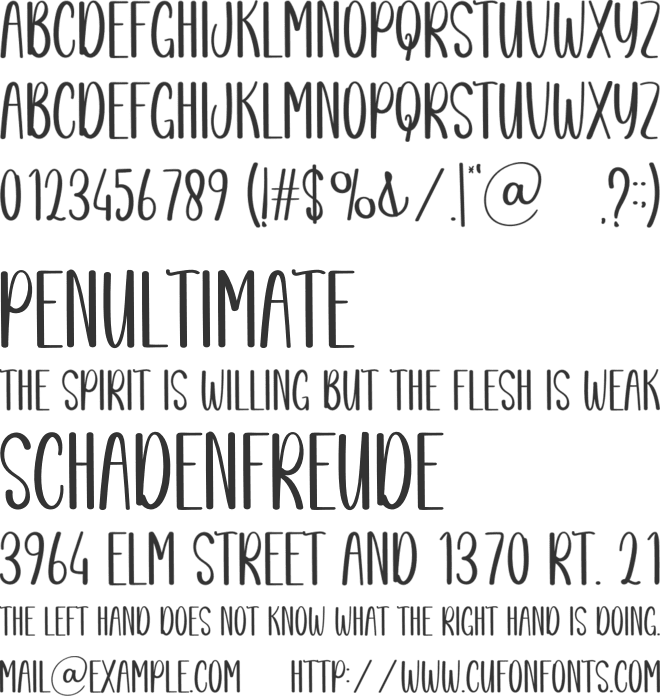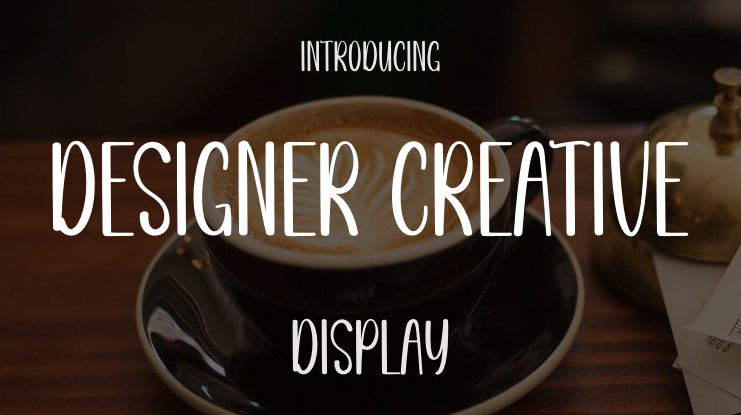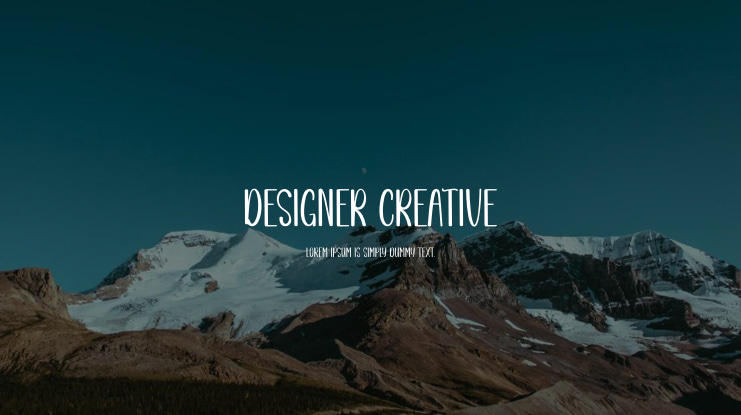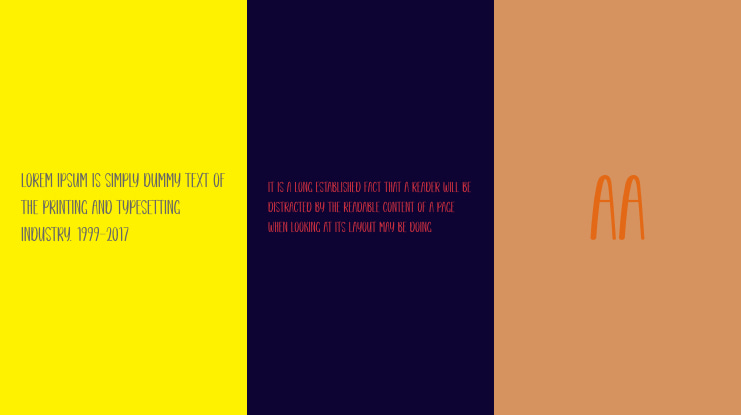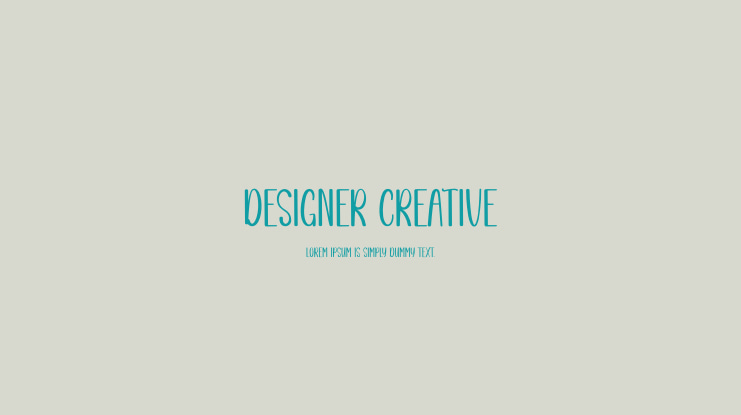
Designer Creative Font
Our latest elegant font styles are ideal for various applications including wall displays, wedding invitations, social media logos, advertisements, packaging, product design, labels, photography, watermarks, invitations, stationery, and any project requiring stylish handwriting.